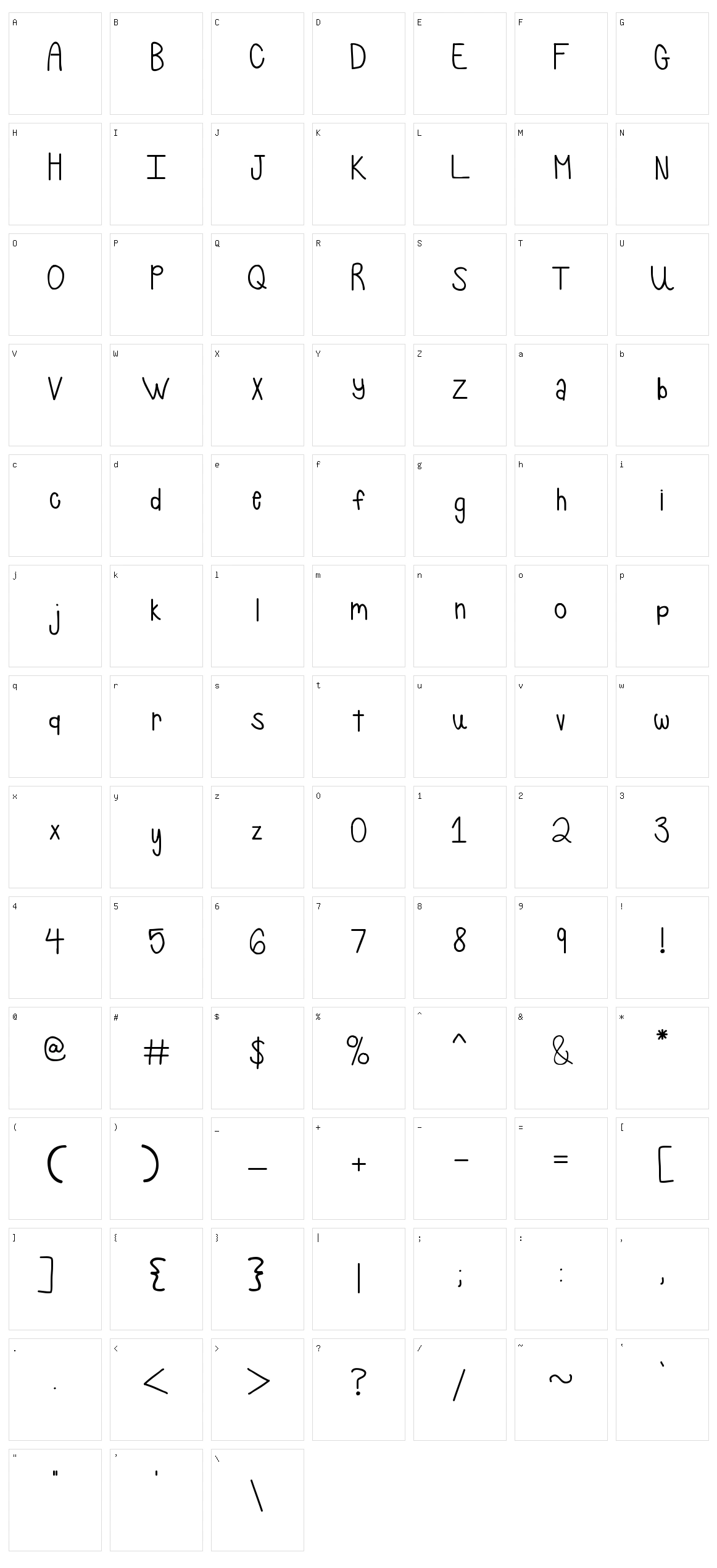
The free font Pancakes and Whipcream is carefully designed by Limitless Company, showcasing a thoughtful balance of creativity and usability and falls under the Script font style. When you download the ZIP file, it contains only 14.83 KB of font files, making it lightweight and quick to download. Please review the license details below to understand permitted usage and distribution rights. If license information is not available, we recommend using this font for personal projects only or contacting the author directly for commercial usage permissions.